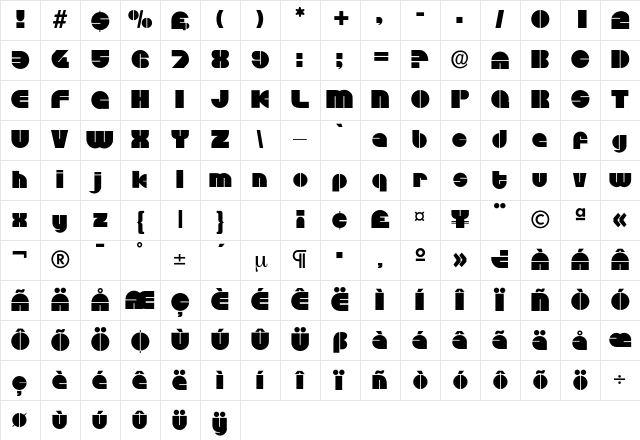
DiscoRegular Regular
Design Context for DiscoRegular
DiscoRegular is a composed and adaptable typeface that performs quietly and consistently across a wide range of design contexts.